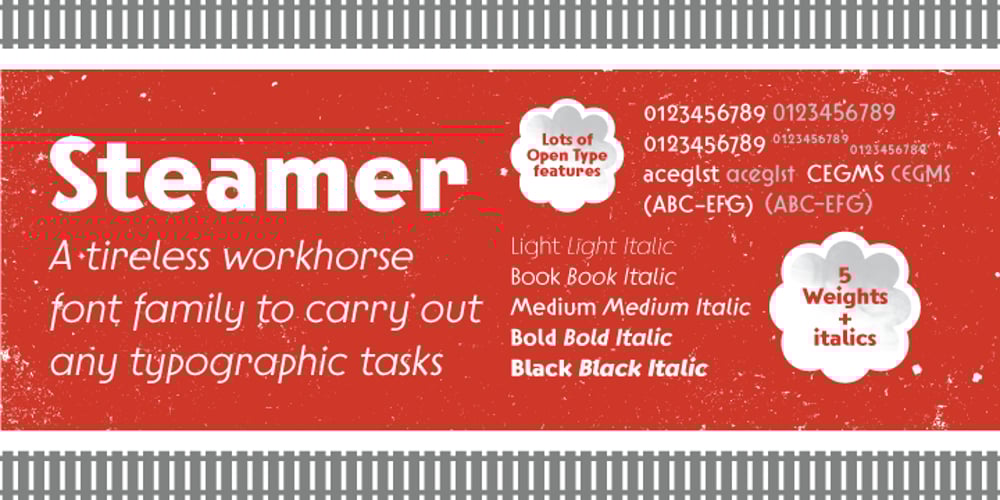
Steamer Font Family was designed by Erik Jarl Bertell and published by Erik Bertell. Steamer contains 10 styles and family package options. Steamer is a grimy grotesque with a thick early 20th century air to it. A tireless workhorse, it is accustomed to carrying out any typographic task from continuous text to bold headlines steadily through any conditions.